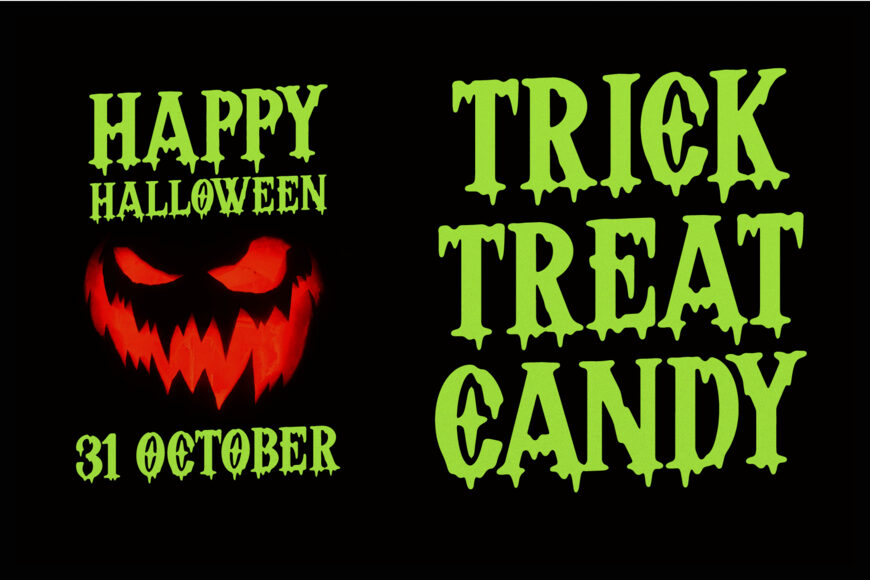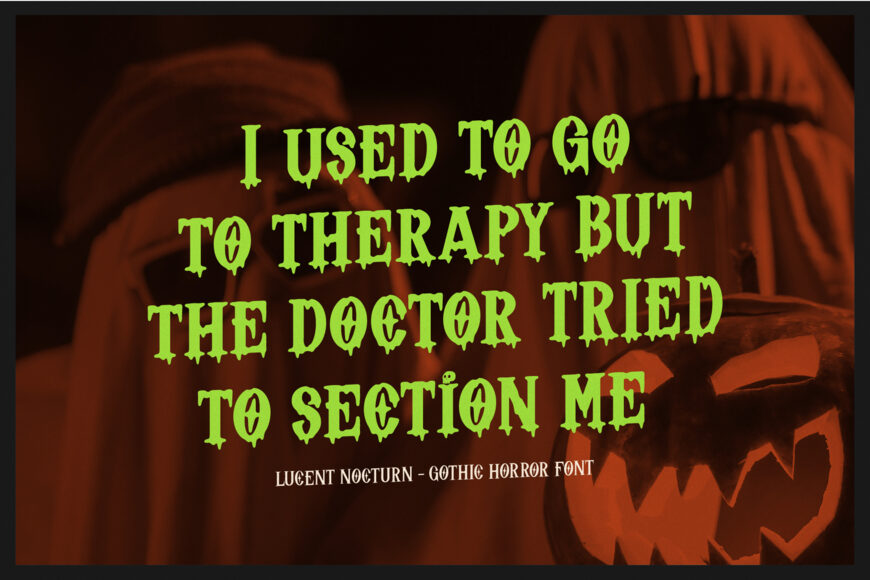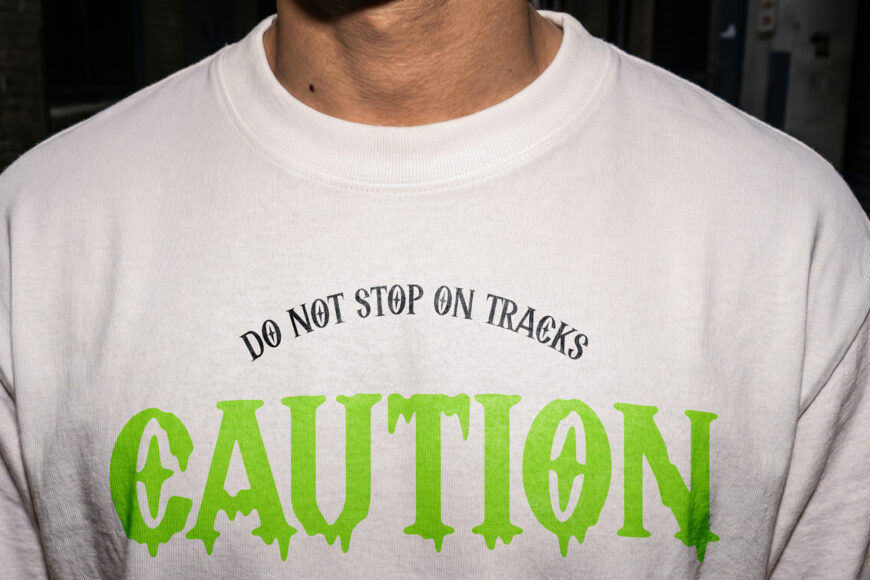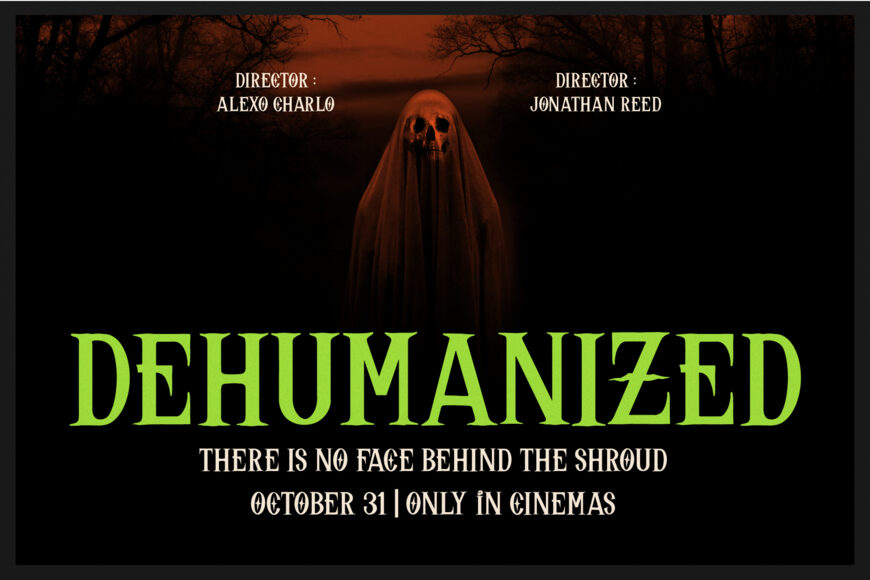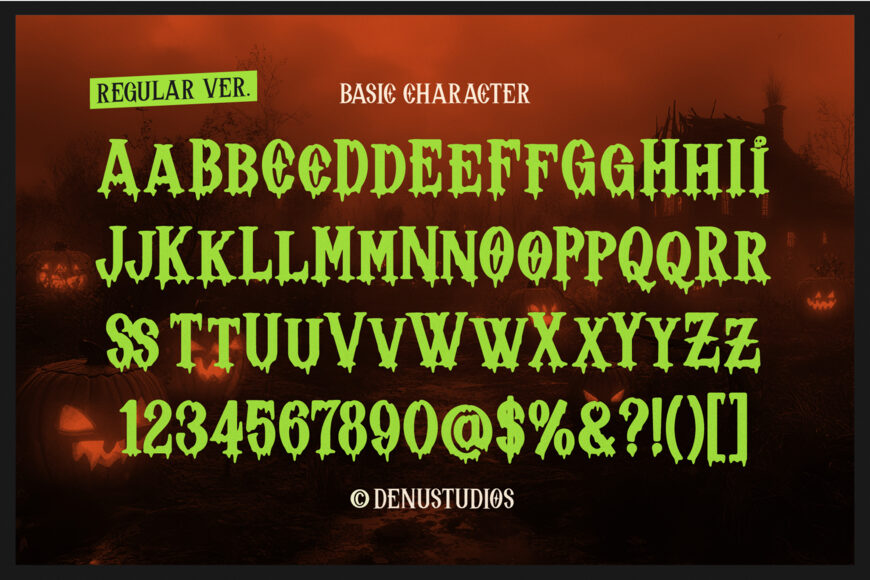
Summon sinister elegance, dark mystery, and spine-chilling horror flair with Lucent Nocturn! This tall gothic display font combines sharp, jagged serif accents with menacing slime-drip bottoms and mystical eye-like counter details (seen in the ‘C’ and ‘O’). Its eerie, high-contrast silhouette brings a hauntingly dramatic atmosphere to any Halloween or dark fantasy composition.
Ideal for horror movie titles, Halloween party banners, haunted house posters, metal band logotypes, book covers, sticker packs, and custom Cricut or Silhouette craft SVG projects!